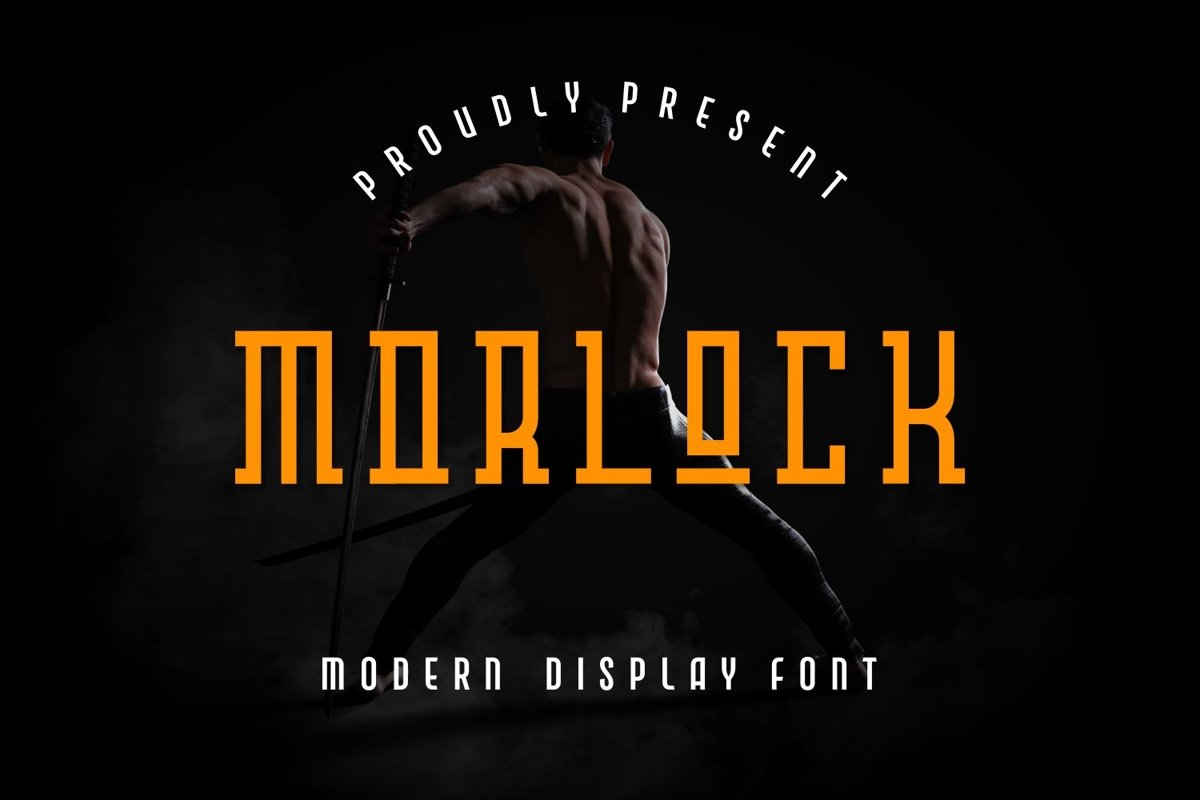
Morlock is a monoline serif display come with modern themes. This uppercase and lowercase good and unique shape. It matches applies in some designs such as the logotype, branding, packaging, quotes, poster, shirt, book, invitation and more custom design. The features uppercase, lowercase, numeral, punctuation & symbol, multilingual support, PUA encoded (fully accessible without additional design software).